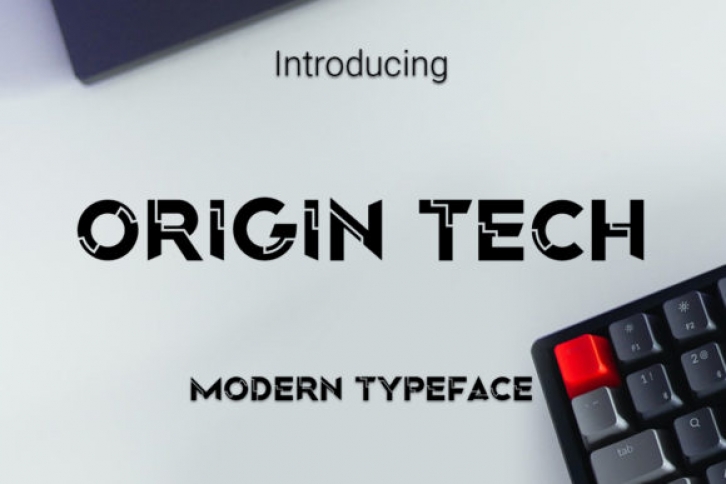
Origin Tech is a modern display typeface. Designed for modern project themes, this font is perfect for game/app designs, logo designs, posters, advertising and many more.